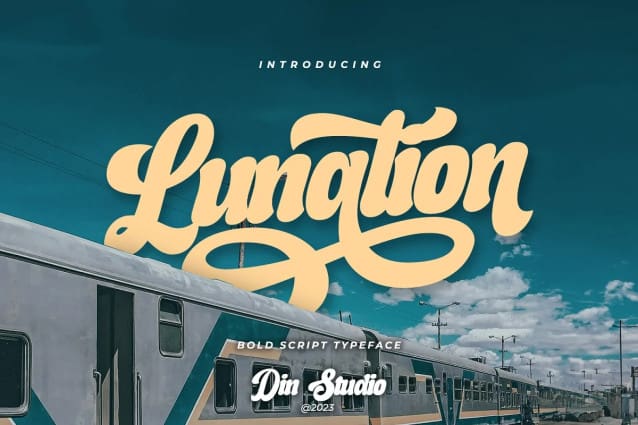
Lunation Font
Lunation Font is a versatile typeface that marries the charm of script fonts with a contemporary twist. Crafted with a fairly bold weight to command attention. Its slightly reduced contrast ensures that each character stands out clearly, providing optimal readability in various design applications. The defining characteristic of Lunation is its carefully crafted swinging endings. These artistic flourishes gracefully embellish specific letters, lending an air of sophistication and uniqueness to your text. These subtle yet distinctive curves and sweeps add a playful rhythm and sense of movement to your words, making them flow seamlessly across the page.